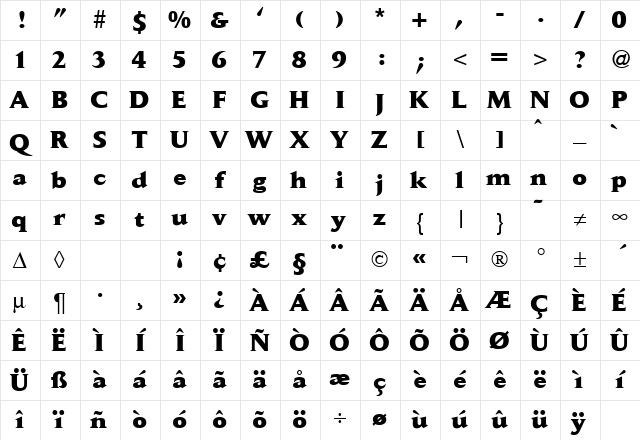
DaylightExtrabold Regular
Design Context for DaylightExtrabold
DaylightExtrabold is a composed and adaptable typeface that performs quietly and consistently across a wide range of design contexts. Its bold stroke weight gives it real presence on the page.